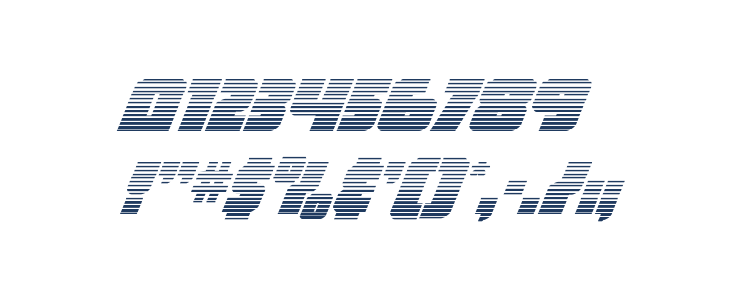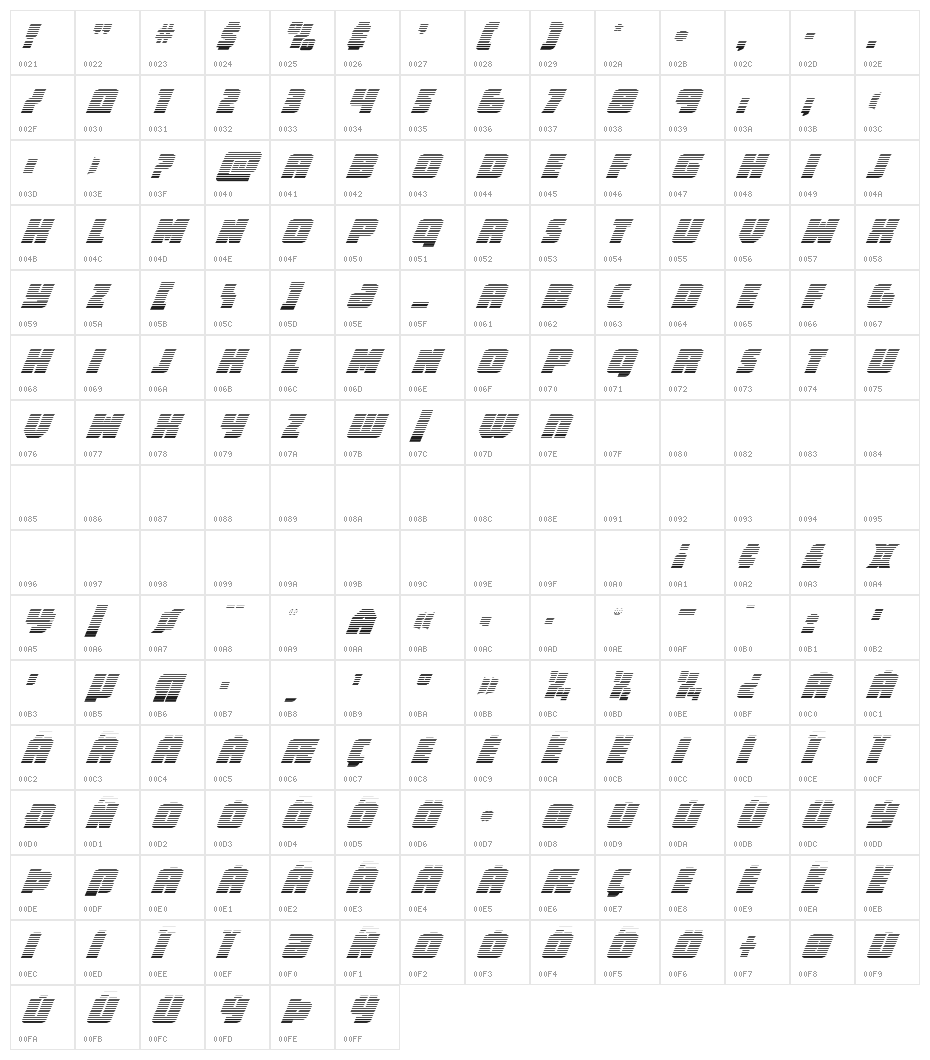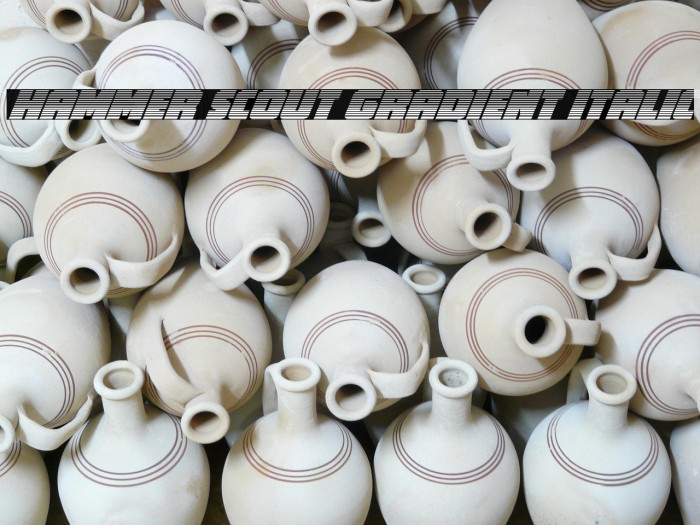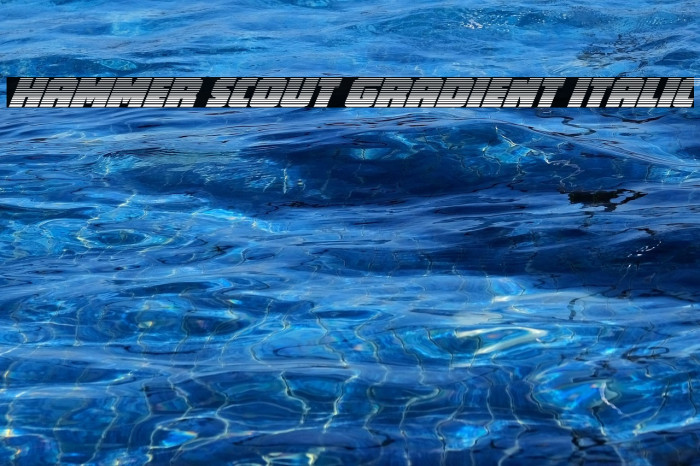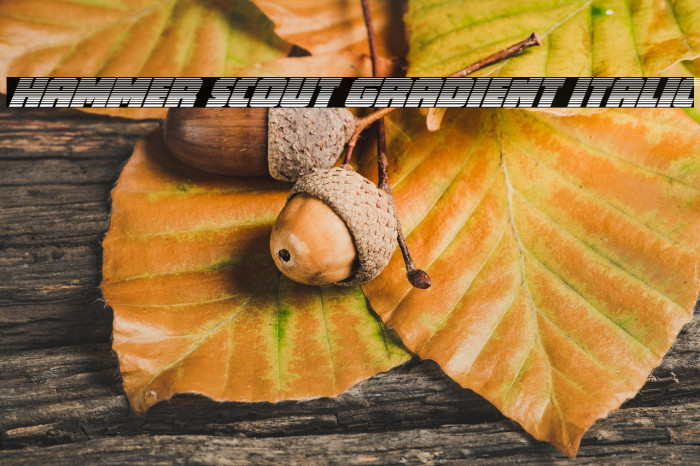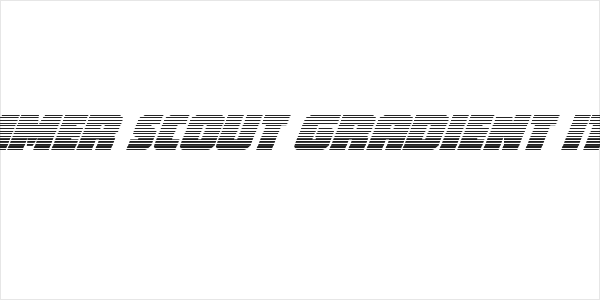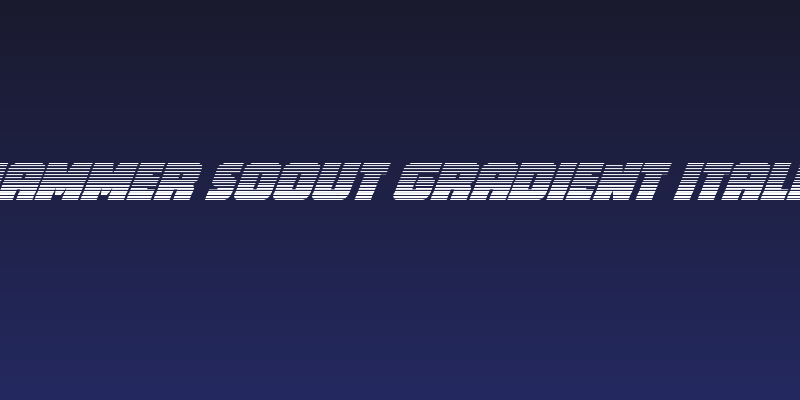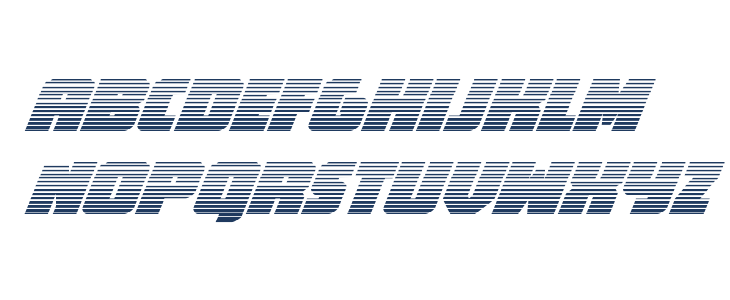
Hammer Scout Gradient Italic Font
Hammer Scout Gradient Italic Description
This font features a bold, italicized style with a distinct gradient effect created by horizontal lines running through each character. The design is highly dynamic, giving a sense of movement and speed. The uppercase and lowercase letters, as well as numbers and special characters, maintain a consistent slanted orientation, enhancing the italicized appearance. The font's unique striped pattern adds a modern and futuristic touch, making it stand out in any design. The characters are wide and have a strong presence, suitable for impactful visual statements.
| Proposed Projects | Ideal for sports branding, automotive advertisements, futuristic designs, and dynamic posters. |